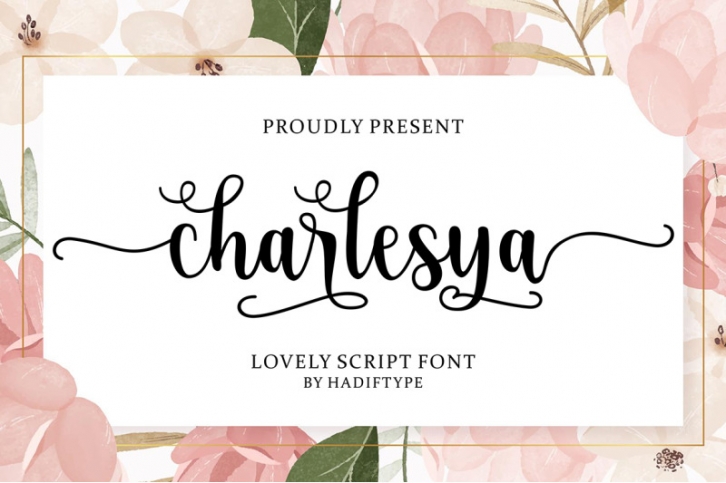
Charlesya Script is a elegant Calligraphy Font! For those of you who are needing a touch of elegance and modernity for your designs.
add more beautiful and aesthetic fonts to perfect your extraordinary project with some interesting features that are perfect for a feminine-style project.
Perfect for elegant logos, upscale packaging, wedding stationery, websites, and any other projects requiring a handwritten and luxurious touch.
Charlesya Script was built with OpenType features and includes beginning and ending swashes, also supports other languages.This font works best in a program that supports OpenType features such as Adobe Indesign, Adobe Illustrator CS, or Adobe Photoshop CC, CorelDraw X6-X7, Microsoft Word 2010 or later versions.